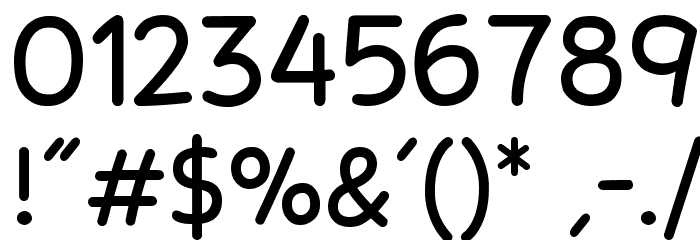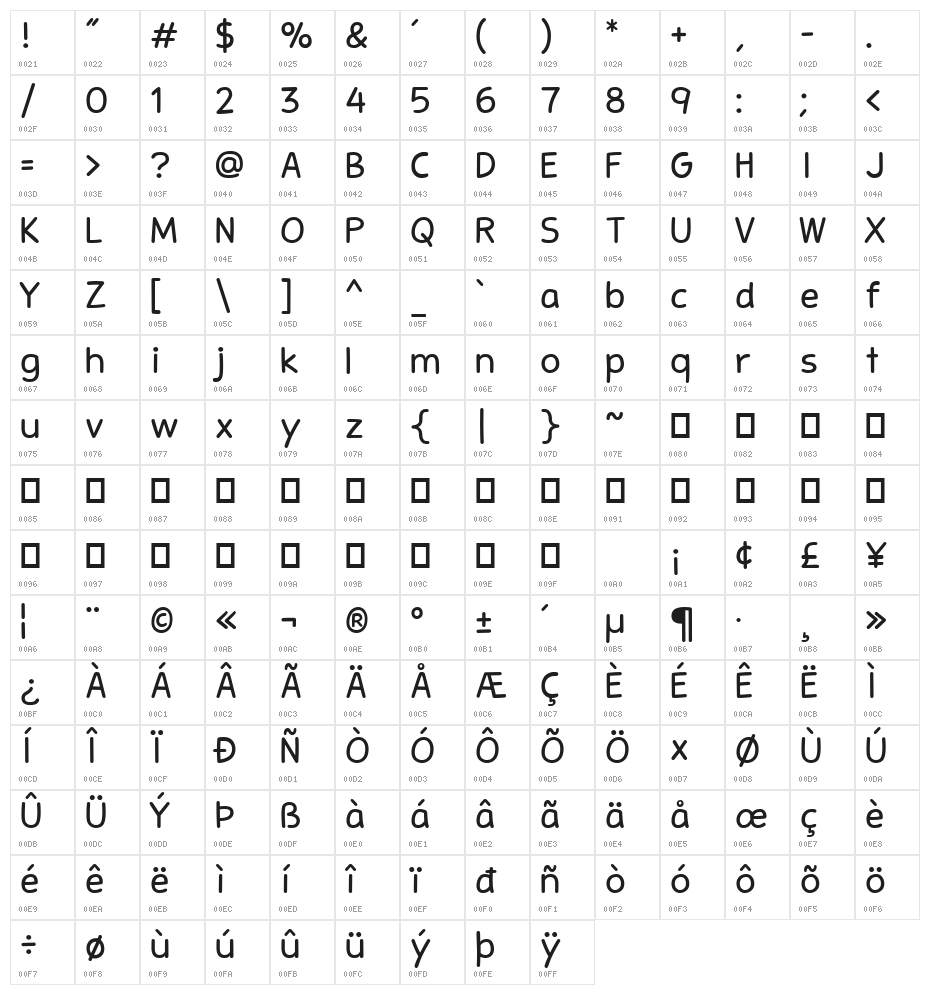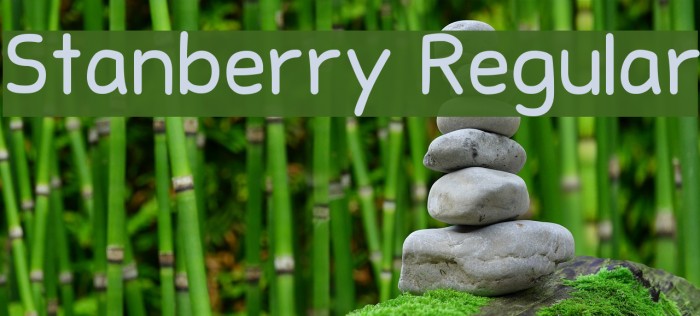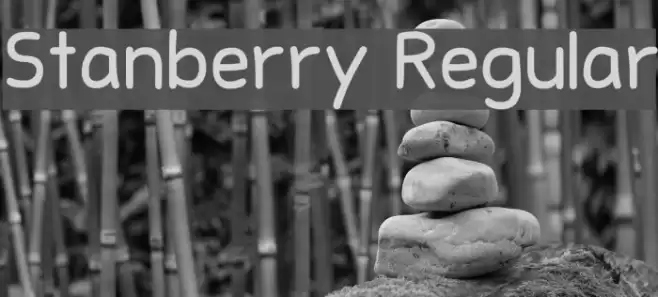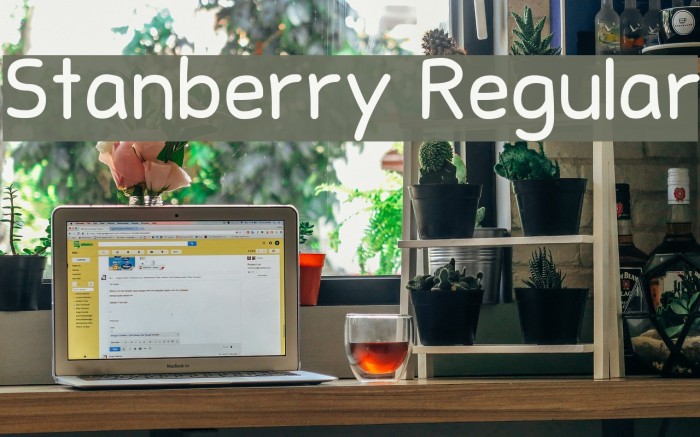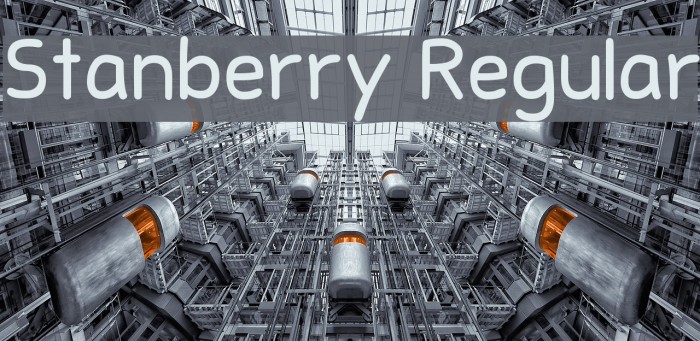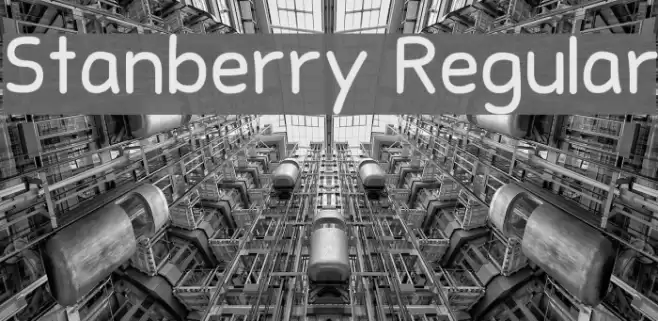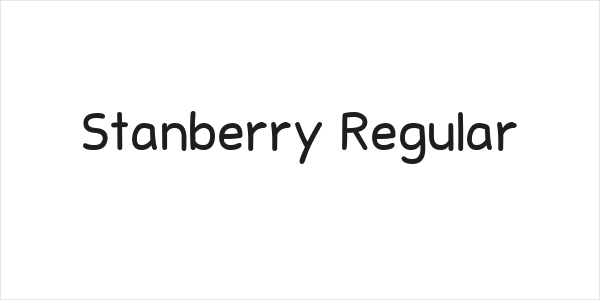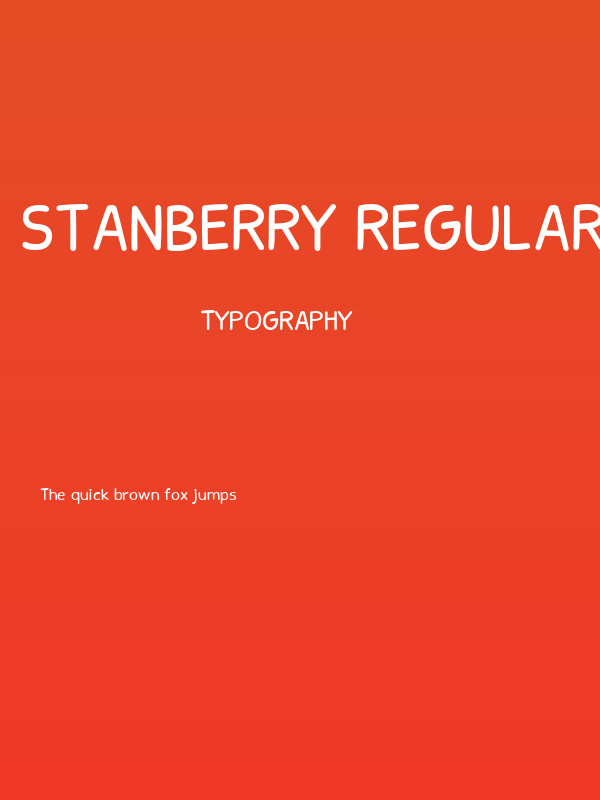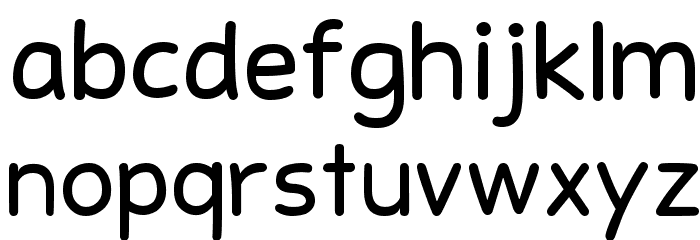
Stanberry Regular Font
Stanberry Regular Description
This font features a playful and rounded design, characterized by its smooth curves and friendly appearance. The letters are evenly spaced, providing a clean and approachable look. The uppercase and lowercase letters maintain a consistent style, with slightly exaggerated curves that add a whimsical touch. The numerals are clear and legible, matching the overall rounded theme. Special characters are well-integrated, maintaining the font's cohesive style. This font is versatile, suitable for both digital and print media, and works well in various sizes without losing its charm.
| Use Case | Headlines, Logos, Casual Text |
| Proposed Projects | Ideal for children's books, playful branding, casual invitations, and friendly web design. |